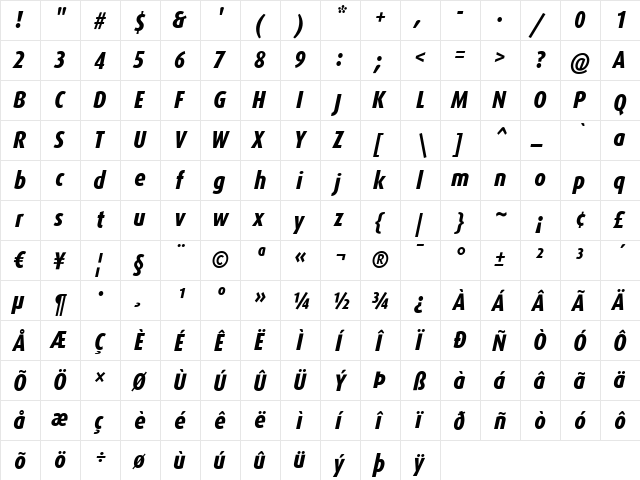
DaxCondensed-ExBoldItalic Regular Font Preview
| Foundry | Hans Reichel, published by Fontshop International for the FontFont library |
Design Context for DaxCondensed-ExBoldItalic Typeface
DaxCondensed-ExBoldItalic offers clean, dependable letterforms without strong stylistic allegiance, making it a practical choice for designers who need flexibility. Its italic angle brings a sense of urgency and motion to the letterforms. Its bold stroke weight gives it real presence on the page. Its narrow stance lets it pack a punch even in space-constrained designs.
Pro Tip: Try DaxCondensed-ExBoldItalic for annotation and caption copy alongside an upright companion — the contrast in angle creates a dynamic but ordered typographic system.